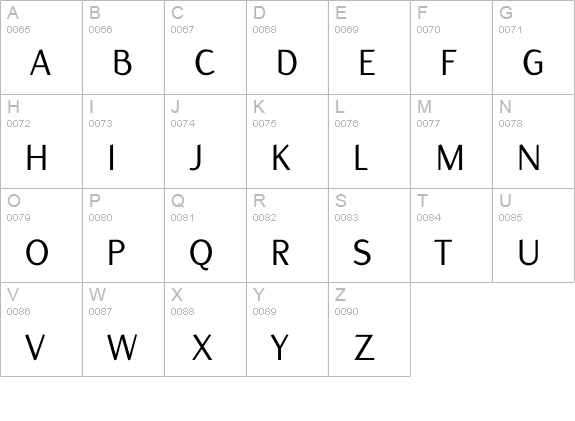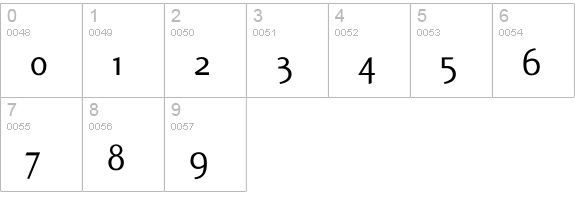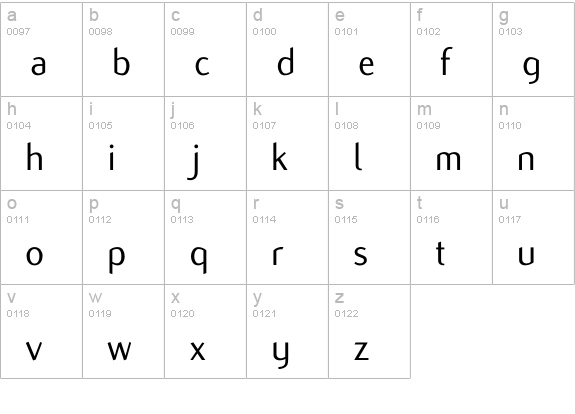
Flux font is a modern and stylish typeface designed to make a statement in your projects. With its sleek and versatile design, Flux is perfect for a wide range of creative applications, from branding to graphic design. The clean lines and elegant curves of this font give it a contemporary look that is sure to stand out. Best of all, Flux font is completely free to download at FontsMarket.com. You can easily access this stunning typeface and enhance your designs without any cost. Don't miss out on the opportunity to add Flux font to your collection and elevate your projects with its unique charm and sophistication. Download it now and let your creativity flow with Flux font.